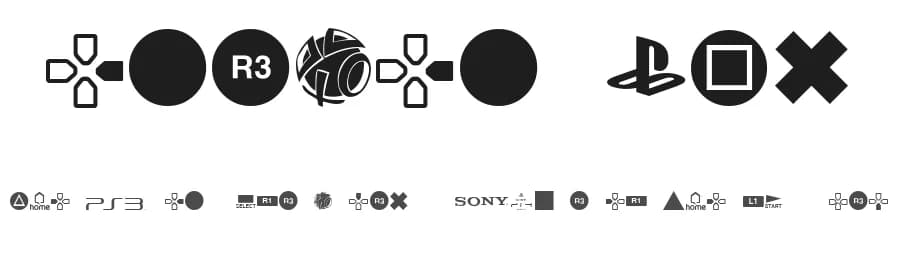
About Iconic PSx Font
- Fixed the L3 and R3 icons
- Renamed from Playstation Buttons to Iconic PSx
- New icons added
Iconic PSx Font is a versatile dingbats font that works for both headings and body text. Pair it with a contrasting sans-serif or serif font to add visual interest and a clear distinction between titles and body copy.
Iconic PSx Font